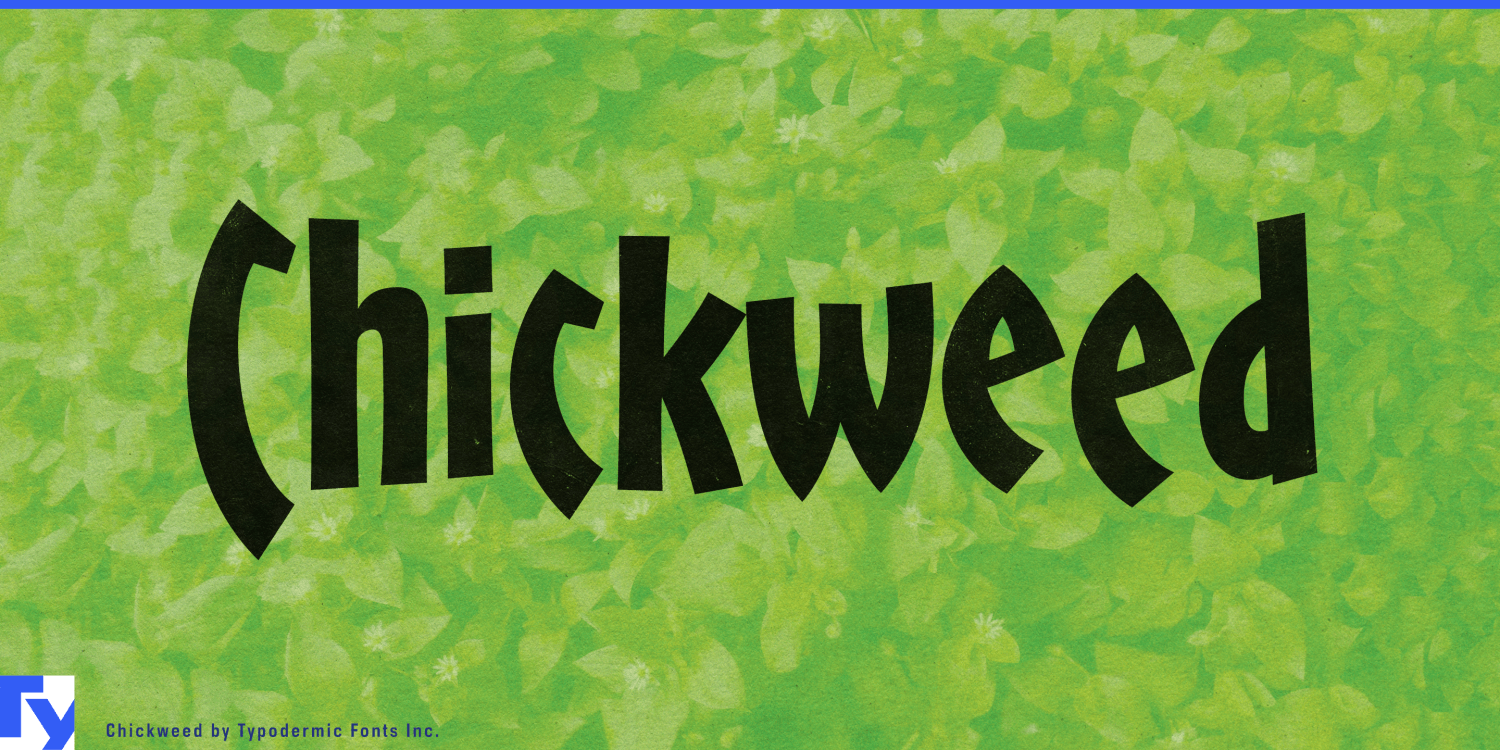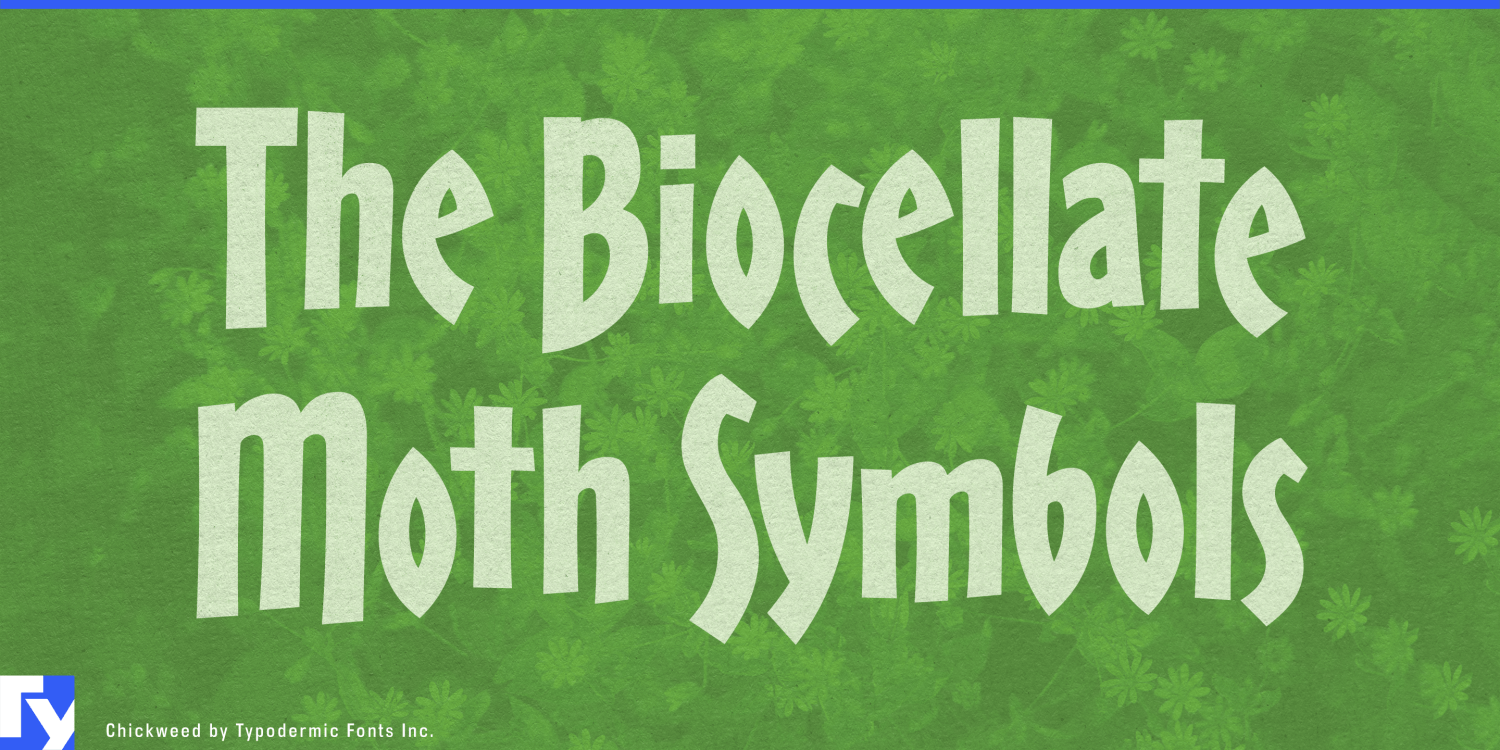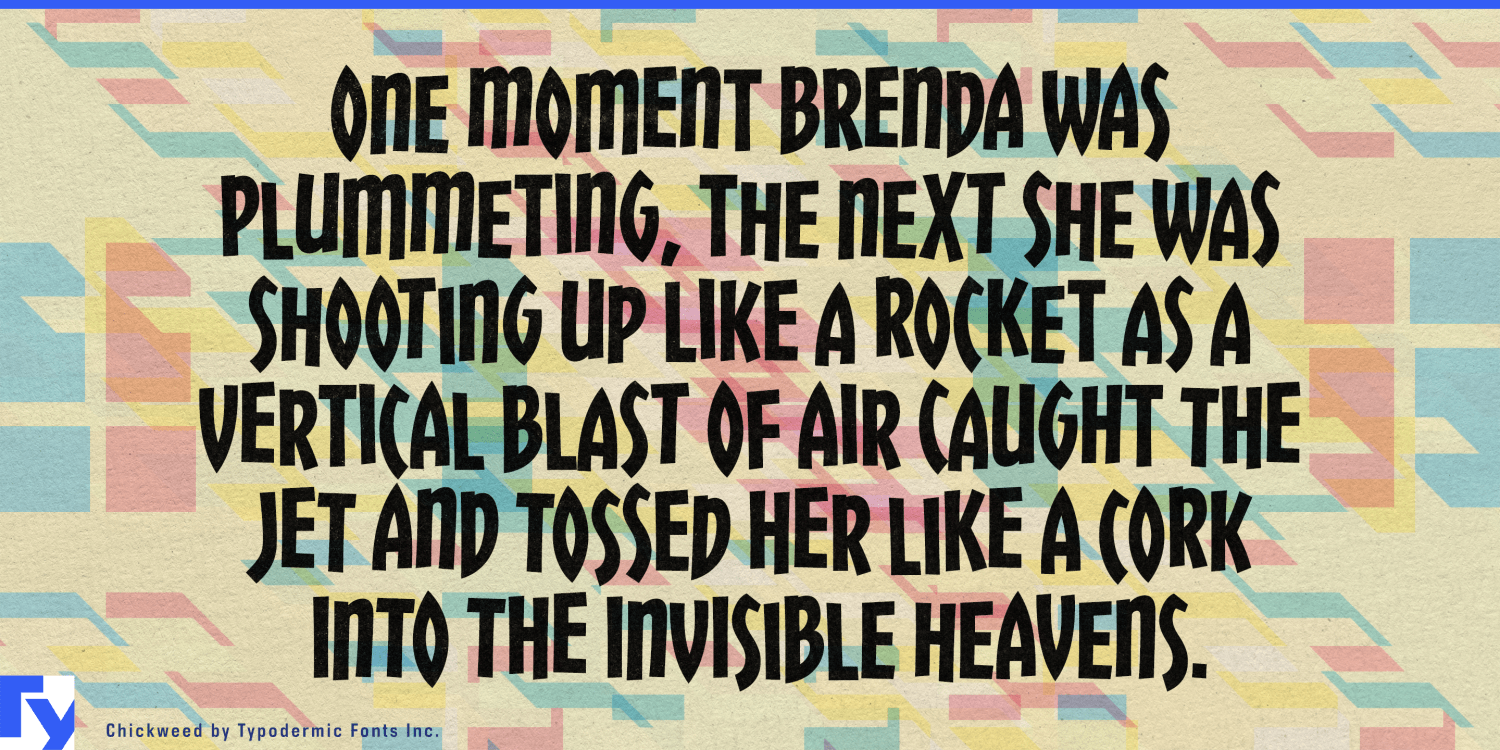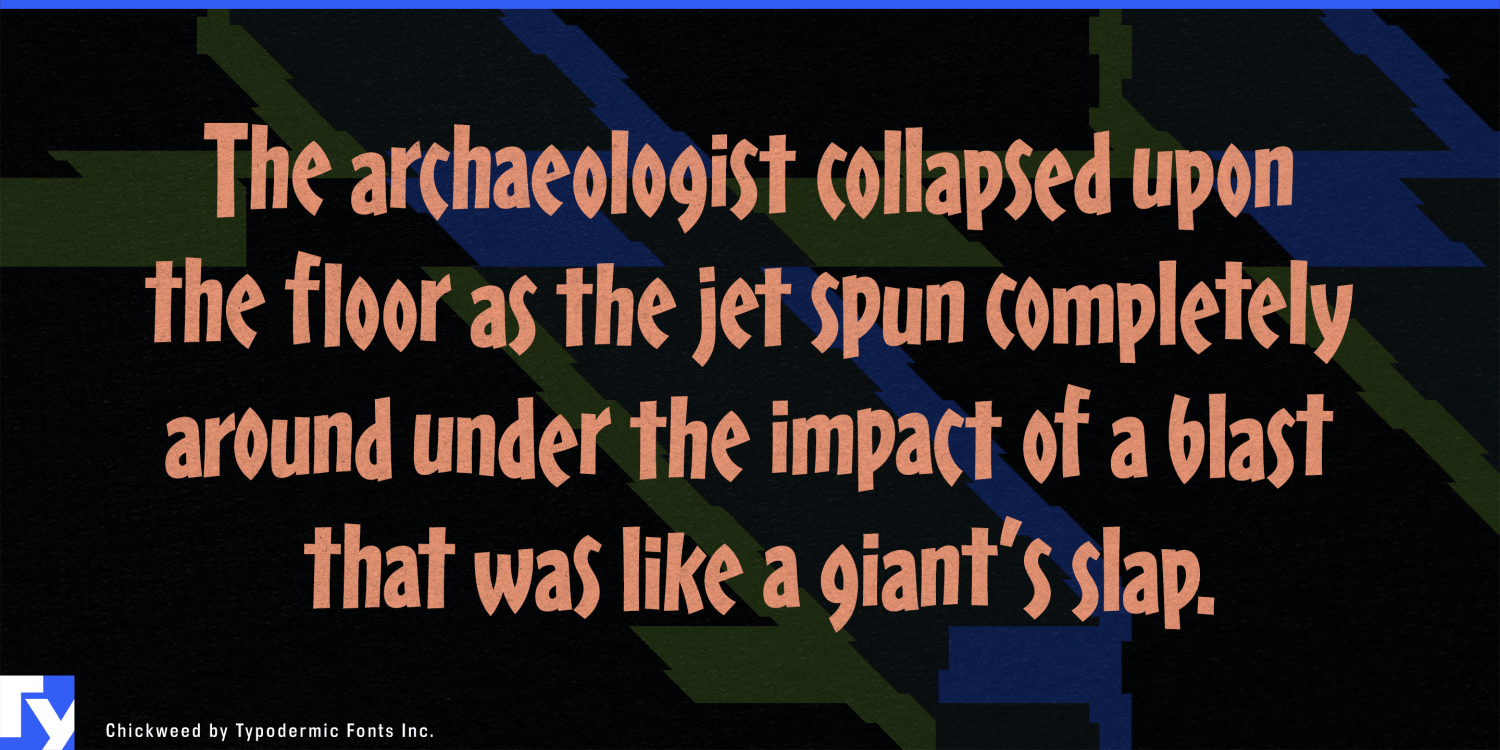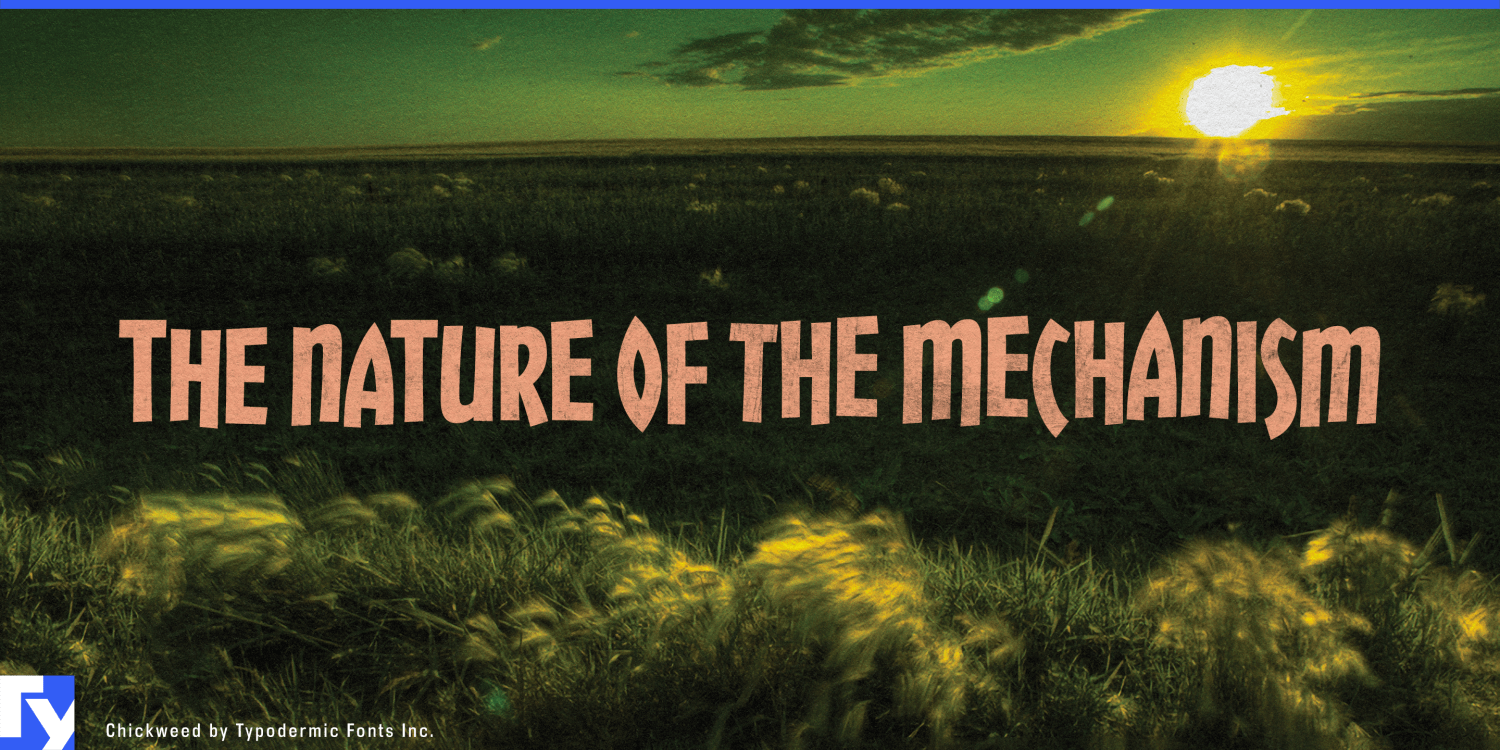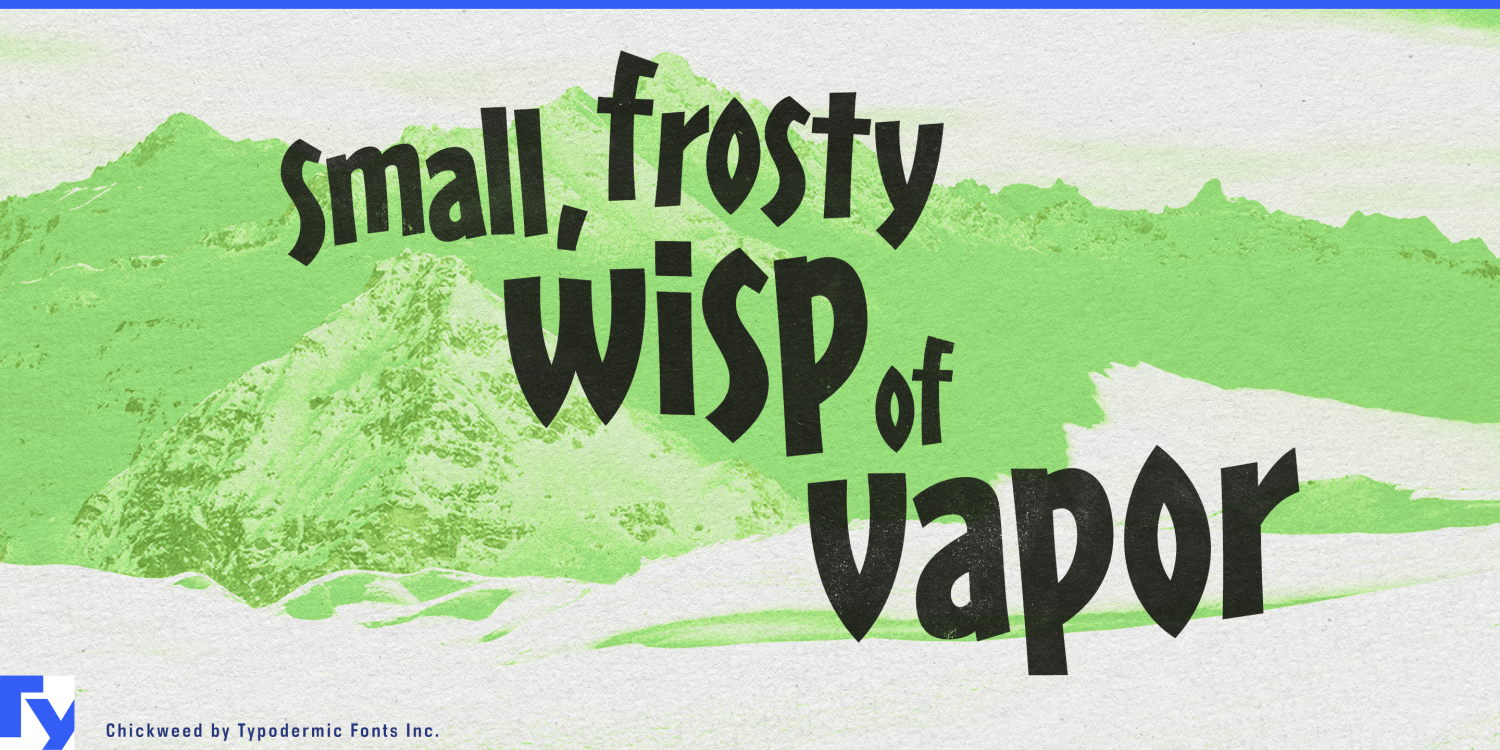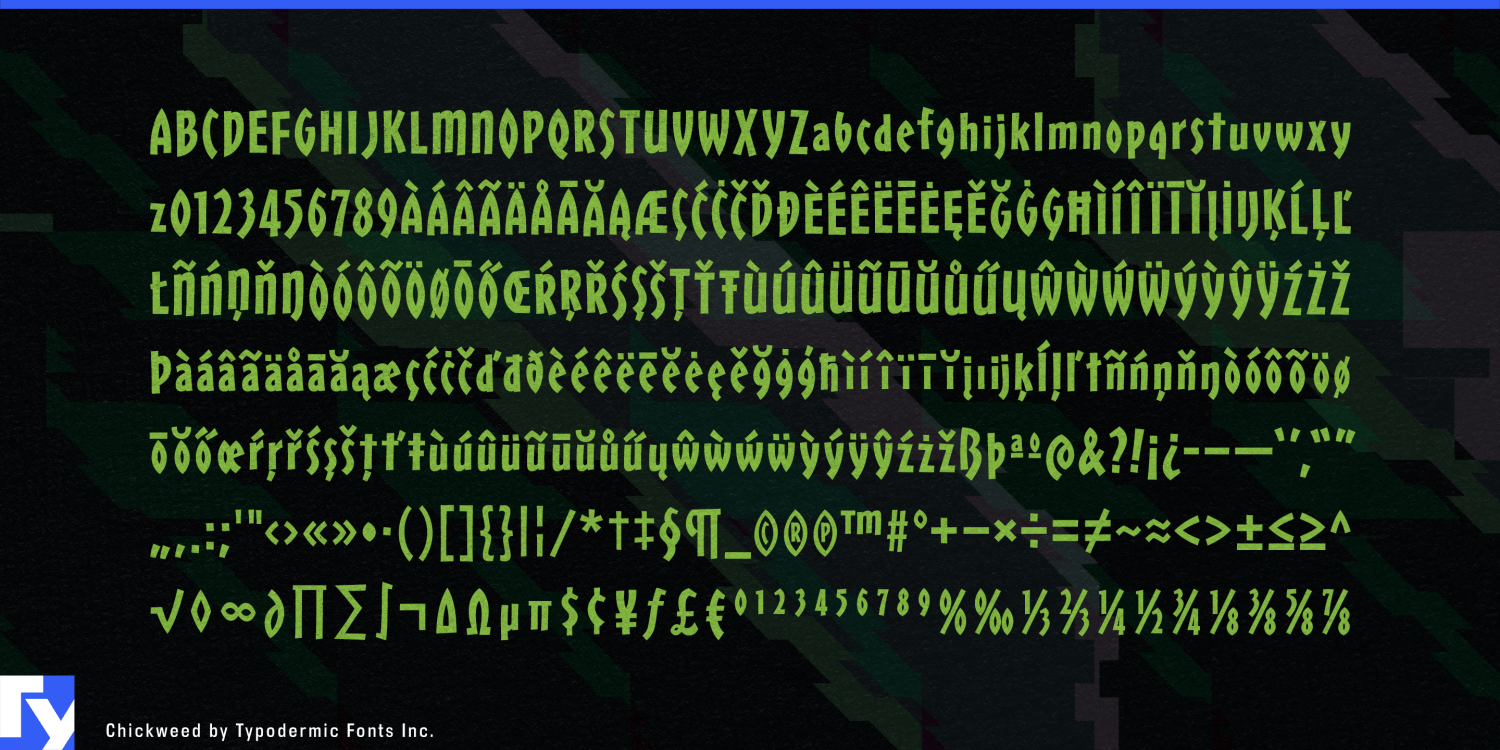
Chickweed
Buy NowChickweed was built for squeezing a lot of lettering into very little width. Inspired by a 1960s snack label, its tall, narrow forms pursue that idea aggressively: the S is compressed almost to abstraction, the O turns its counter sideways, and other letters take similarly economical routes through the available space. The result looks hand-cut and irregular rather than mechanically condensed.
That makes Chickweed especially useful for packaged foods where the front panel is small but the product name needs to stay large. Protein bars, trail snacks, jerky, granola, crackers, mushroom snacks, energy chews, and camp meals all force substantial names and flavor descriptions onto narrow wrappers and pouches. Chickweed gives those words more scale without falling back on the hard industrial character of a conventional condensed sans.
The same economy works well for hot sauce, chili crisp, pickles, kimchi, spice blends, marinades, and other foods sold through ranges of flavors and varieties. Chickweed can establish the brand, product type, or dominant flavor callout while a quieter companion face handles ingredients and regulatory information.
Its irregular texture is not entirely fixed. Chickweed includes three variations of each letter and numeral, drawing from 130 alternates as text is set, so repeated characters avoid looking conspicuously duplicated. Across cans, pouches, cartons, retail displays, and multi-product ranges, that variation helps preserve the loose quality suggested by the letterforms.
Functional beverages provide another strong fit. Kombucha, sparkling tea, yerba mate, electrolyte drinks, canned coffee, and botanical beverages often combine compact containers with long flavor names and crowded front panels. Chickweed’s narrow proportions leave more room for large typography alongside illustrations, ingredients, and benefit statements.
Trail-food brands, climbing nutrition, endurance fuel, seed packets, plant nutrients, soil amendments, and greenhouse supplies extend the same idea into outdoor and plant-care products. In all of these applications, Chickweed turns narrowness into something more distinctive than simple compression: efficient lettering with the irregularity of hand-made commercial graphics.